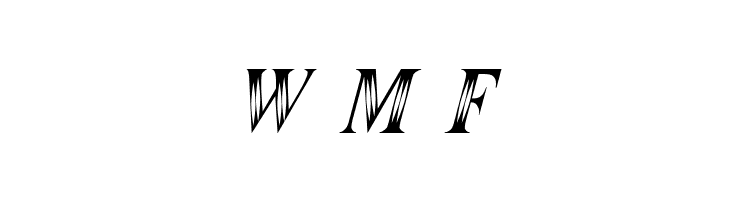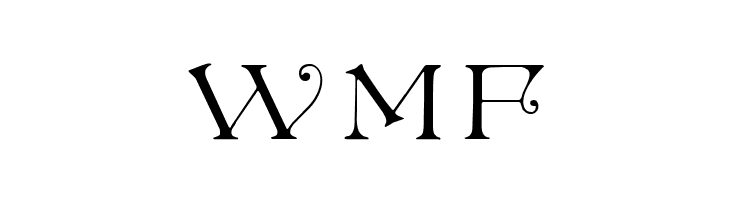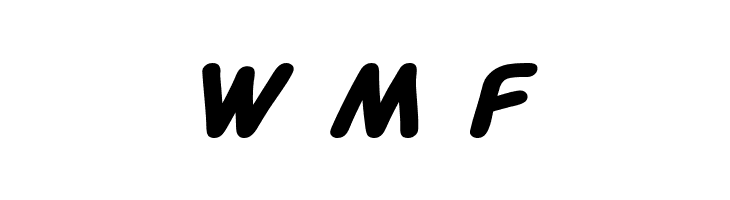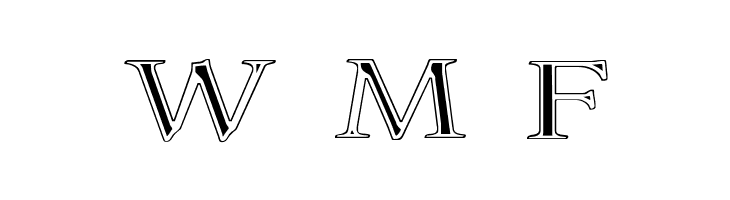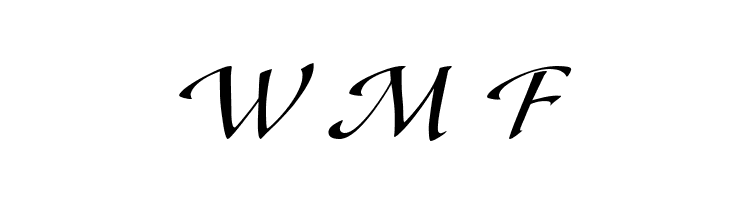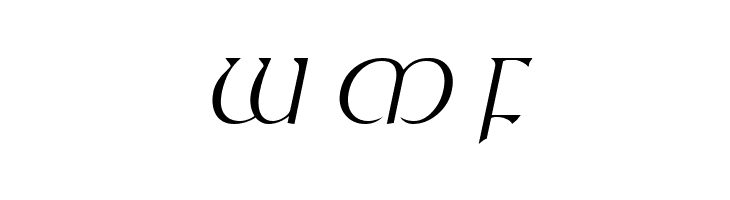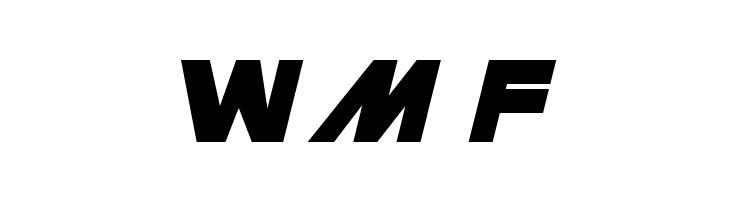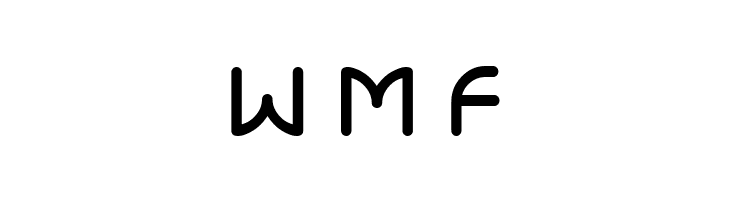
A sleek, modern italic font with a futuristic design and consistent line weight.
A bold, italicized font with a futuristic and sleek design.
A modern, rounded font with smooth curves and a clean, balanced aesthetic.
A collection of intricate damask-inspired ornamental designs for elegant decoration.
A thin, geometric font with a modern, futuristic design.
A bold, narrow serif font with high contrast and elegant vertical emphasis.
A bold, dynamic font with sharp, angular edges and a unique, edgy style.
A futuristic, geometric font with a stencil-like design and bold, rounded edges.
A playful, artistic font with tall, hand-drawn characters and varying stroke widths.
A bold, hand-drawn style font with expressive, uneven strokes.
A high-contrast, italic serif font with dynamic and elegant strokes.
A tall, narrow font with rounded edges, blending modern and vintage styles.
A bold, geometric font with a futuristic and condensed design.
A modern, geometric font with rounded edges and uniform stroke width.
An elegant and decorative serif font with intricate details and ornamental flair.
A sophisticated Art Deco-inspired font with geometric shapes and elegant curves.
A bold, elegant script font with flowing, connected characters.
A bold, italicized font with extended, rounded letterforms and a playful style.
An elegant serif font with a blend of classic and modern elements, featuring unique curves and flourishes.
A classic serif font with modern elegance and refined details.
A modern, segmented line font with a digital, futuristic style.
A tall, narrow font with high contrast and modern elegance.
A sophisticated serif font with a blend of classic and modern elements.
A bold, geometric font with hexagonal borders and a futuristic aesthetic.
A classic serif font with high contrast and elegant proportions.
A bold, rounded geometric font with a modern and playful style.